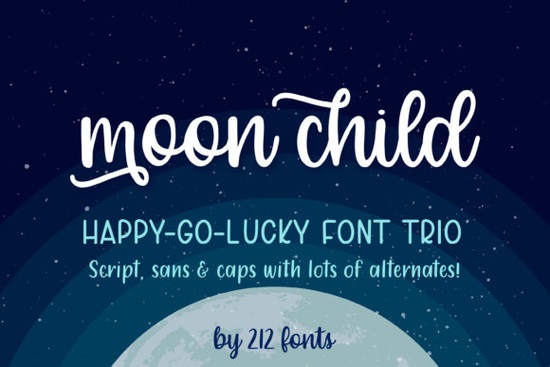
If you have been searching for a typeface that balances playful energy with genuine readability, you have likely come across the Moon Child Font. This joyful, handwritten collection is designed to bring a sense of warmth and personality to any project without sacrificing legibility. Unlike many script fonts that can be difficult to read at smaller sizes, this family includes a script, a sans-serif, and a caps version that are specifically engineered to work together seamlessly. Whether you are designing a logo for a boutique or creating a custom greeting card, having these three distinct styles in one package offers incredible flexibility for your creative workflow.
Why choose a font family with multiple styles?
One of the biggest challenges designers face is font pairing. Finding a script that looks good next to a bold header often requires trial and error. With this specific collection, the hard work is already done for you. The sans-serif version provides a clean, modern foundation that grounds the more decorative script elements. This allows you to create hierarchy in your designs easily. For example, you can use the bold caps for a main headline on a t-shirt design and layer the script version over it for a personalized touch. This cohesive look ensures your branding or craft projects appear professional and well-thought-out.
The script style itself is characterized by its bouncy, natural flow. It mimics the movement of a real pen, which adds a human element to digital designs. This is particularly important for small businesses and Etsy sellers who want to connect with their customers on a personal level. When a customer sees a handwritten style on a product, it often feels more authentic and less mass-produced.
How does it compare to other popular scripts?
Understanding where this font fits in the landscape of handwritten typefaces can help you decide if it is the right tool for your specific project. If you are looking for something ultra-elegant and formal for high-end wedding invitations, you might lean towards styles like the Bridesmaid font, which offers a very traditional, sweeping calligraphy feel. However, if your brand voice is more approachable, fun, and youthful, the Moon Child collection is often a better fit.
It also differs significantly from heavier, brush-style scripts. For instance, if you need thick, impactful strokes similar to the Bella Bellia font, this might not be your first choice for a main headline. Instead, Moon Child shines when you need something lighter and airier. It sits somewhere between the modern, geometric feel of the Antura font and the whimsical nature of holiday typefaces. While it isn't specifically themed for the holidays like the Christmas Wish font, its playful nature makes it perfect for festive DIY projects, party banners, or seasonal social media graphics where you want a cheerful vibe without being overtly Christmas-themed.
For those who prefer a very quiet, minimal aesthetic, you might usually look at something like the Absolutely Silent font. Moon Child offers a bit more personality and movement than those ultra-minimalist options, making it ideal for projects that need to catch the eye quickly, such as YouTube thumbnails or Instagram stories.
What are the best projects for this typeface?
Because of its versatility, this font family is a workhorse for print-on-demand sellers and crafters. Here are a few specific ways you can utilize the script and sans versions together:
- Apparel Design: Use the sans-serif for the base text on a hoodie and the script for a name or a short phrase on the sleeve.
- Wedding Stationery: While it is playful, it is elegant enough for "Save the Date" cards or bridal shower invitations, especially for casual or boho-themed weddings.
- Product Packaging: The clean caps version works wonderfully for ingredient lists or product descriptions on handmade soap labels or candle jars, while the script can highlight the brand name.
- Digital Planners: The readability of the sans-serif makes it excellent for headers in digital planners, while the script adds decorative flair to cover pages.
- Match with Your Brand: Ask yourself if the "joyful" vibe matches your current brand identity or if it represents a direction you want to grow into.